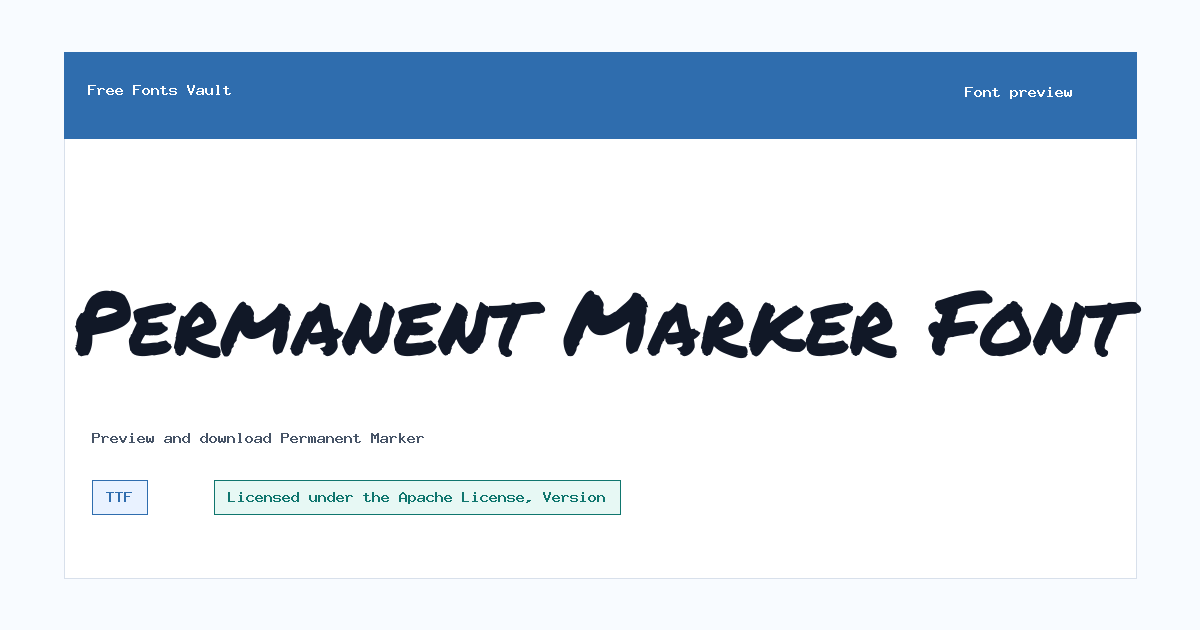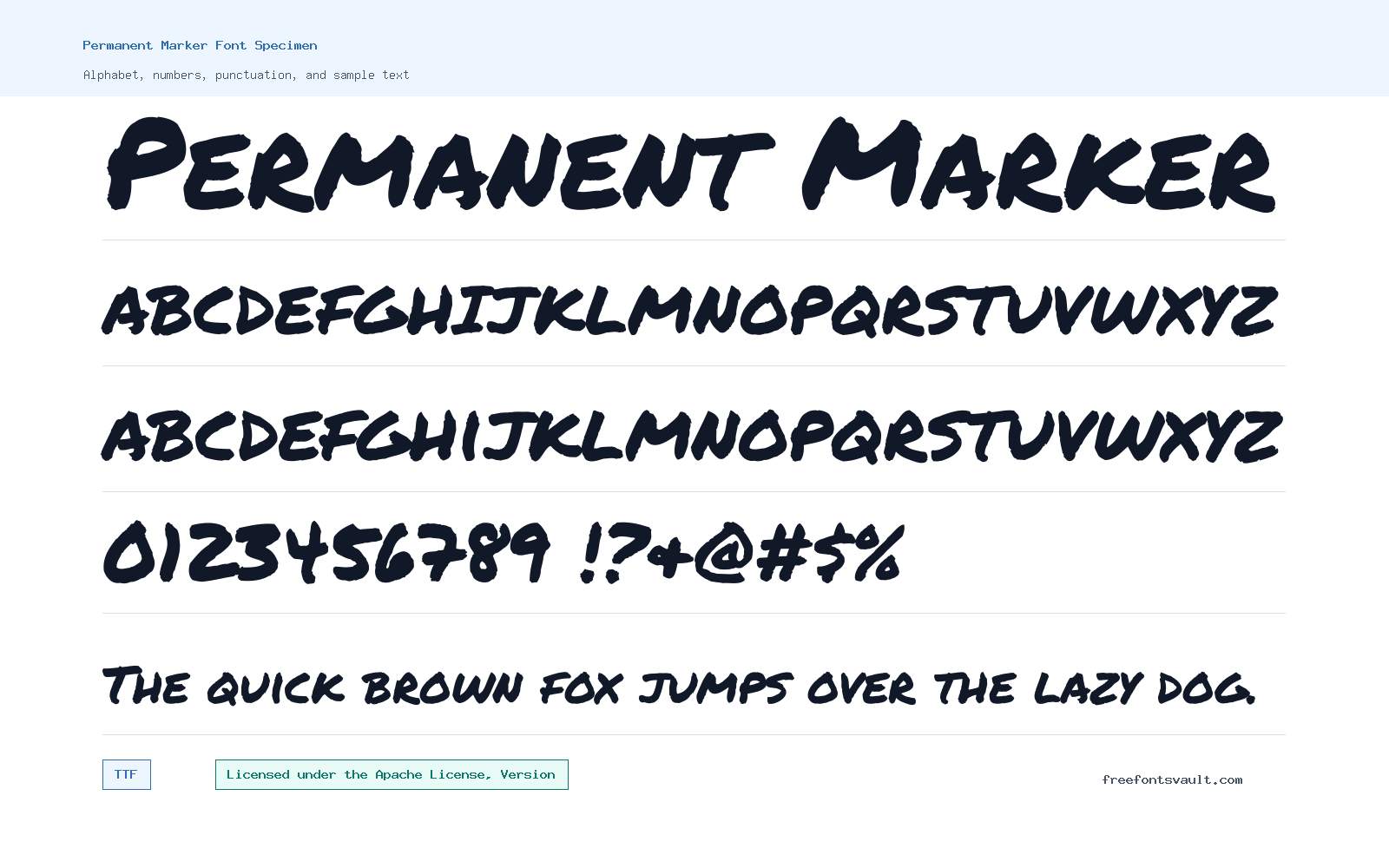
Permanent Marker
Permanent Marker is a heavy hand-drawn display font that aims for the direct, uneven pressure of marker lettering. This page documents the specific local file used by the catalog preview. It is most useful when the type needs to feel immediate: a poster headline, a classroom graphic, a sticker, or a bold social caption. Replace the sample text with the real message because its compact shapes can change noticeably from one word to another.
How Permanent Marker reads
The strokes look intentionally blunt and slightly irregular, which gives the face its handwritten confidence. Capitals form a strong dark texture, while the rougher edges prevent the result from looking like a standard geometric sans. Examine tight pairs such as AR, RK, and ER, plus the spaces around punctuation. In a short word, the marker effect reads as lively; in a very long line, it can turn into a dense black band.
Permanent Marker works well where a playful, energetic, or DIY tone is appropriate. Use it as a display layer and leave enough contrast around the letters. A clean sans serif or a readable serif can carry the supporting paragraph. Avoid relying on it for small interface controls, dense tables, or information that must scan quickly.
Preview before you decide
Try all caps, mixed case, and a word with punctuation. Make the text smaller than the artboard first suggests, because marker-style fonts can look legible in a large preview yet lose separation on a phone or printed label.
Questions about Permanent Marker
Is Permanent Marker good for posters?
Yes, it is a natural fit for a short, high-contrast poster headline or callout.
What should I pair with Permanent Marker?
Use a quiet sans serif or serif for details so the handwritten headline keeps its impact.